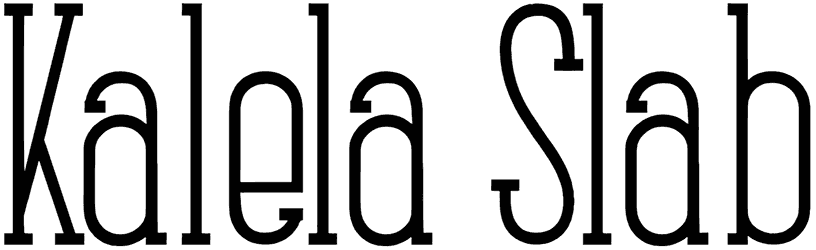
Kalela Slab Font
Kalela Slab is an easy-to-read serif font that will lend an air of professionalism to any design you create. It has the potential to save your typography by rescuing it from monotony and making it aesthetically pleasing to anyone who sees it.
This slab serif font would be a good choice for animated movies, packaging, storybook covers, and other similar types of media. Grab it right now from RB’s large font collection to add some passion to your next project.
Kalela Slab Condensed Slab Serif Font
Kalela Slab is Condensed Slab Serif Font a Modern Condensed Slab serif with solid font files. Suitable for branding, name card, stationary, design title, blog header, Logo, greeting cards, quotes, posters, art quote, typography.
Kalela Slab Condensed Slab Serif Font also suitable for your any projects.